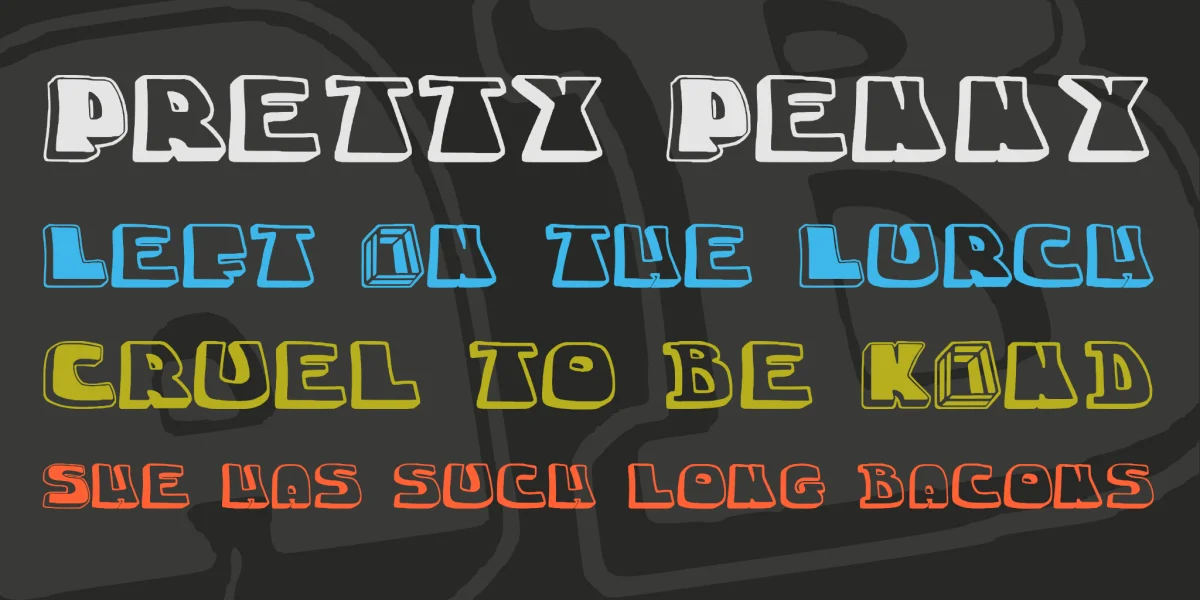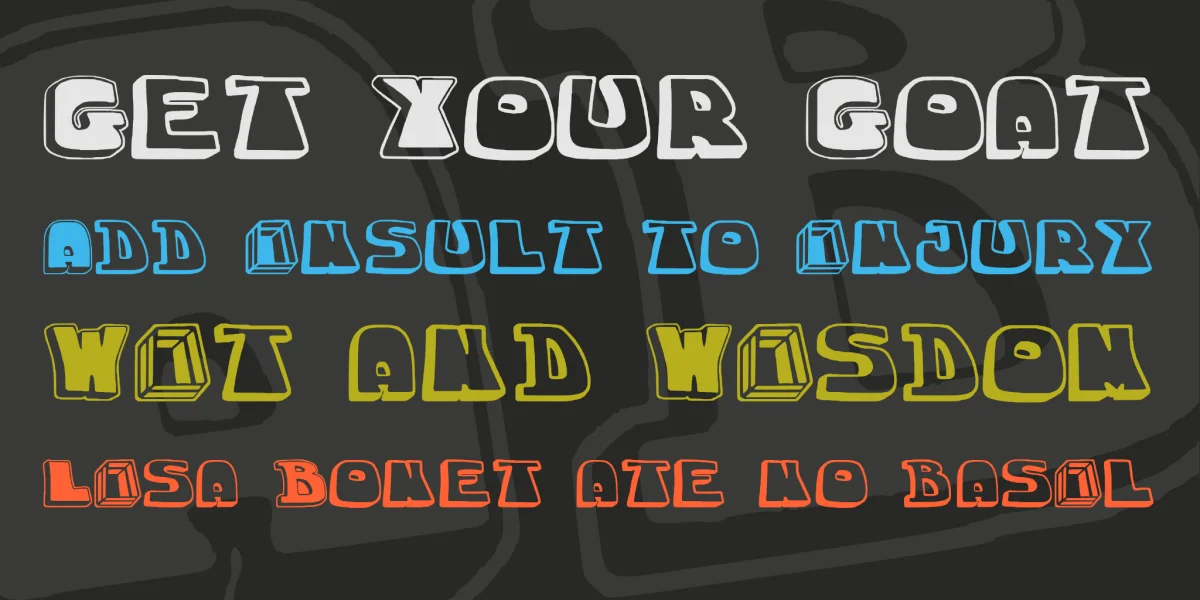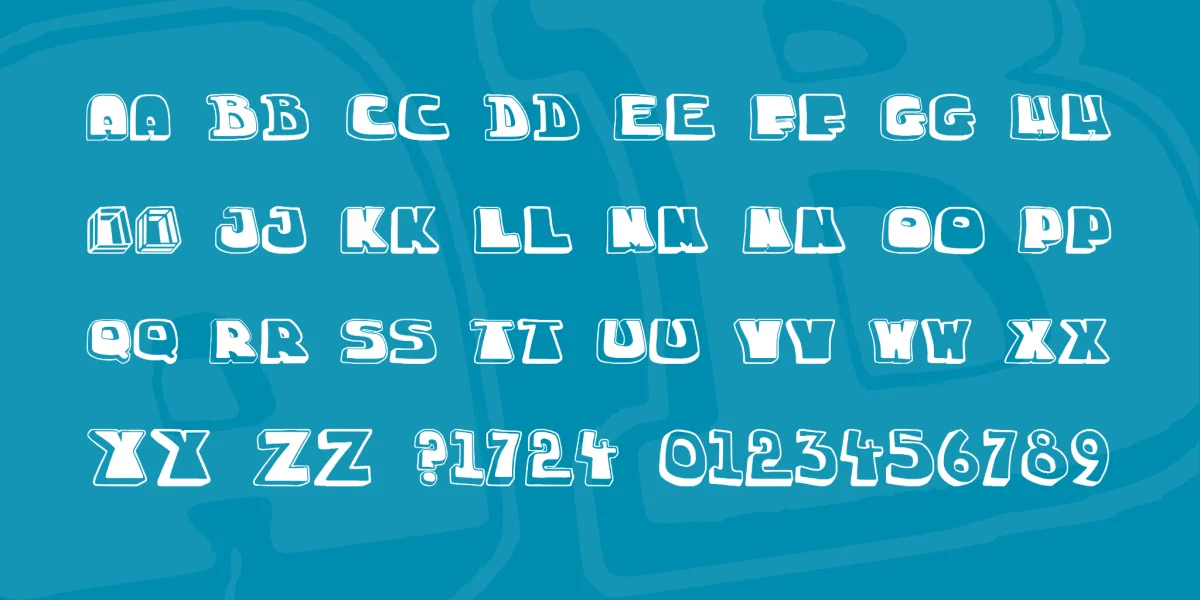
A tribute to Chuck Stake. You can find some examples of Chuck's work here: http://www.oxygenartcentre.org/exhibition-chuck-stake/
and here: https://mailartists.wordpress.com/2012/04/06/chuck-stake/